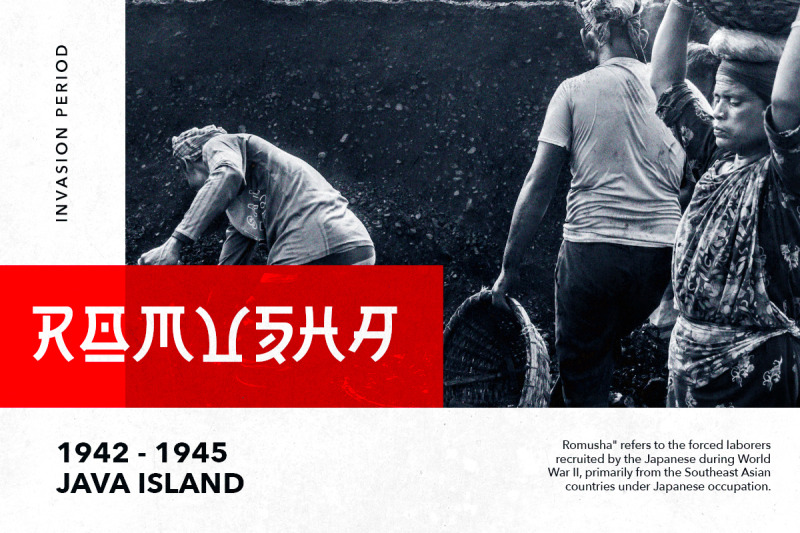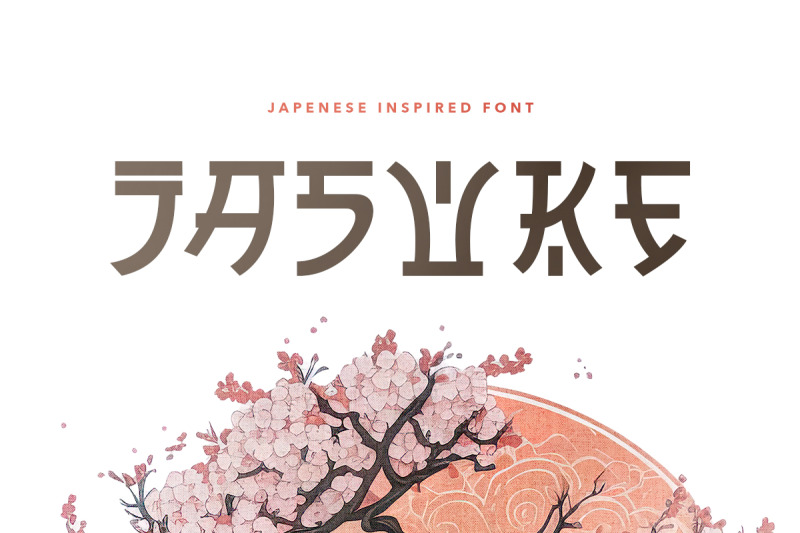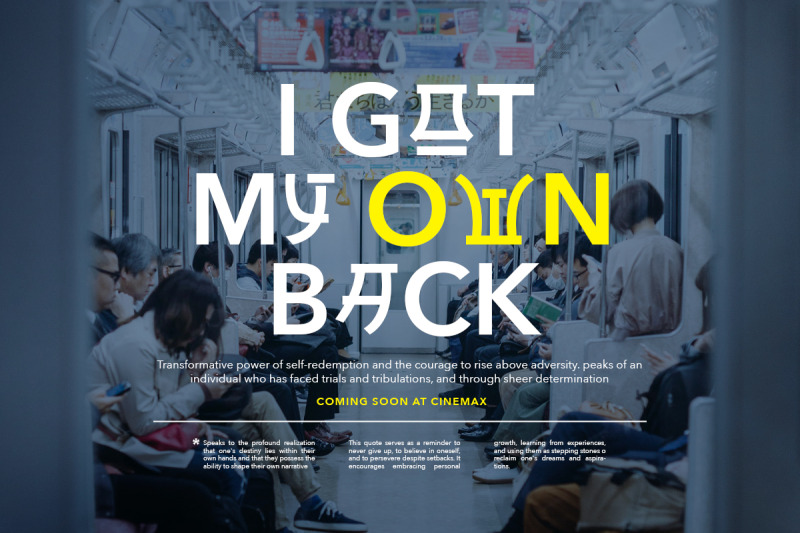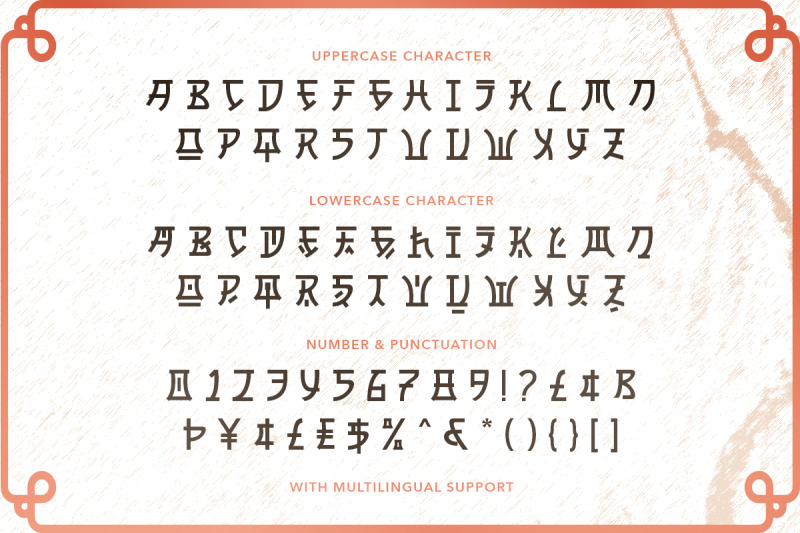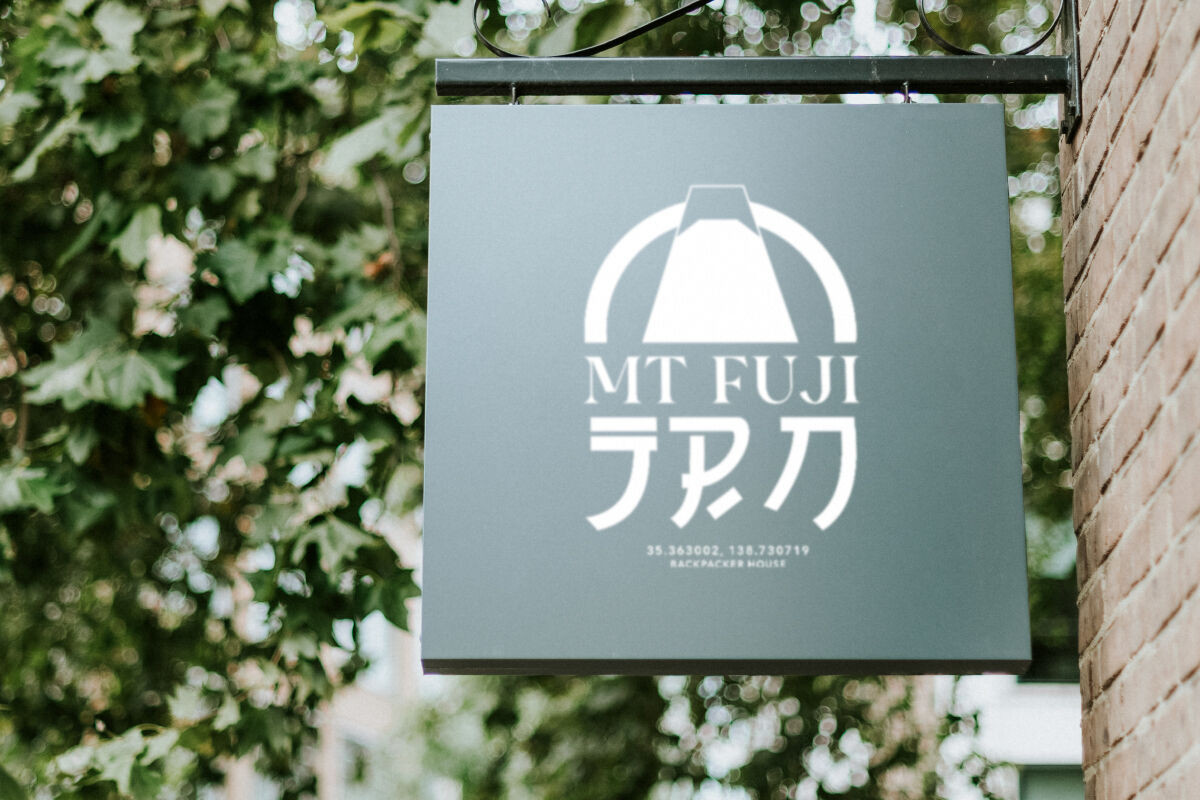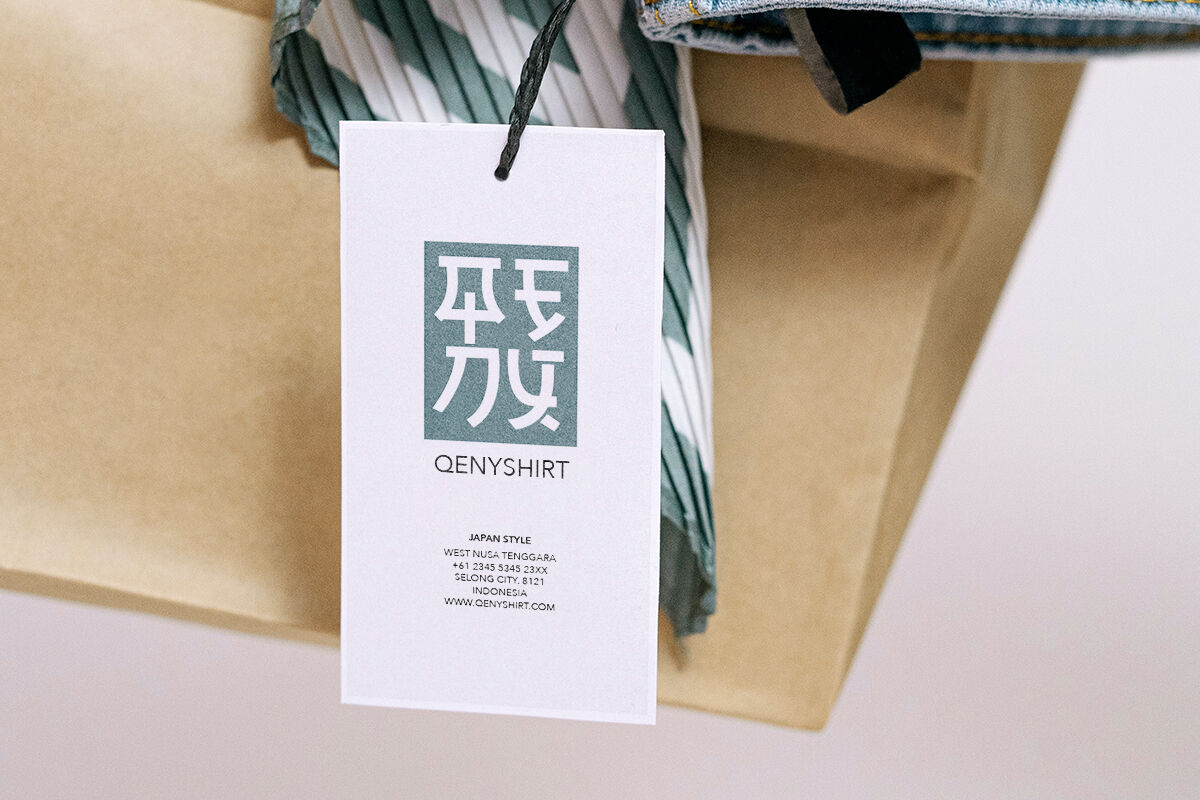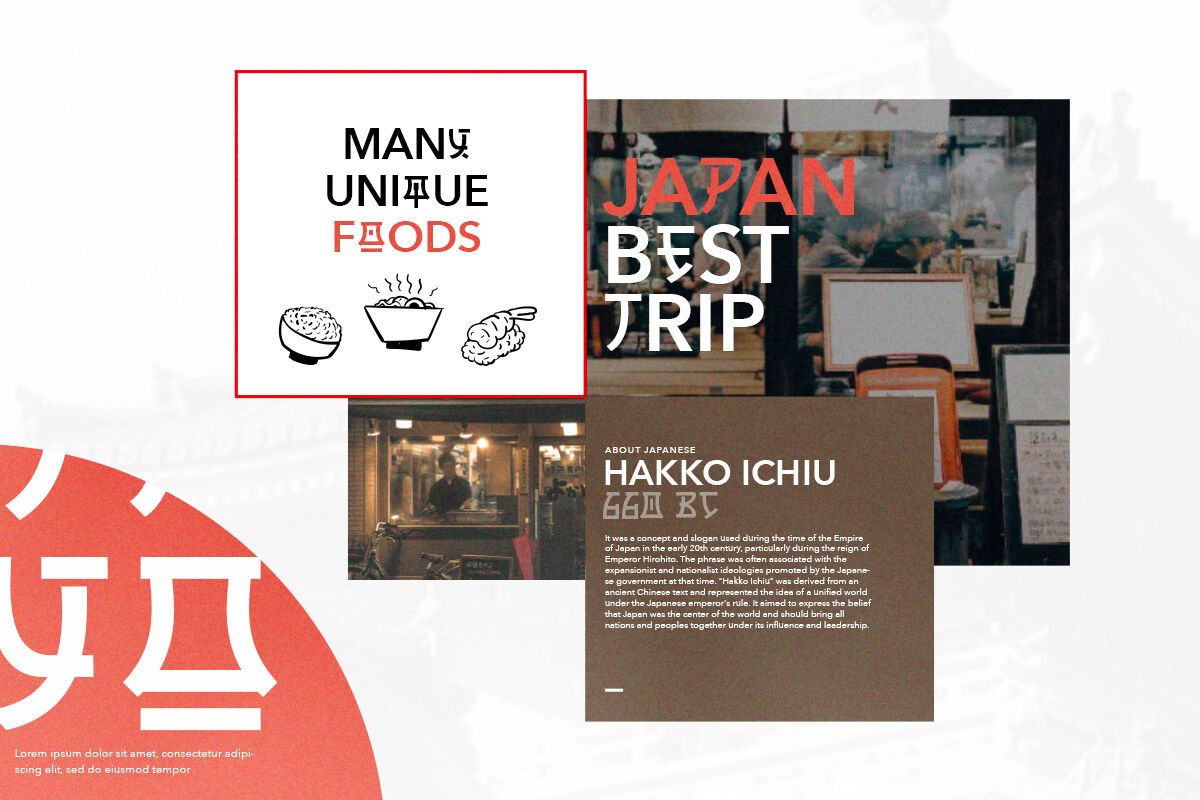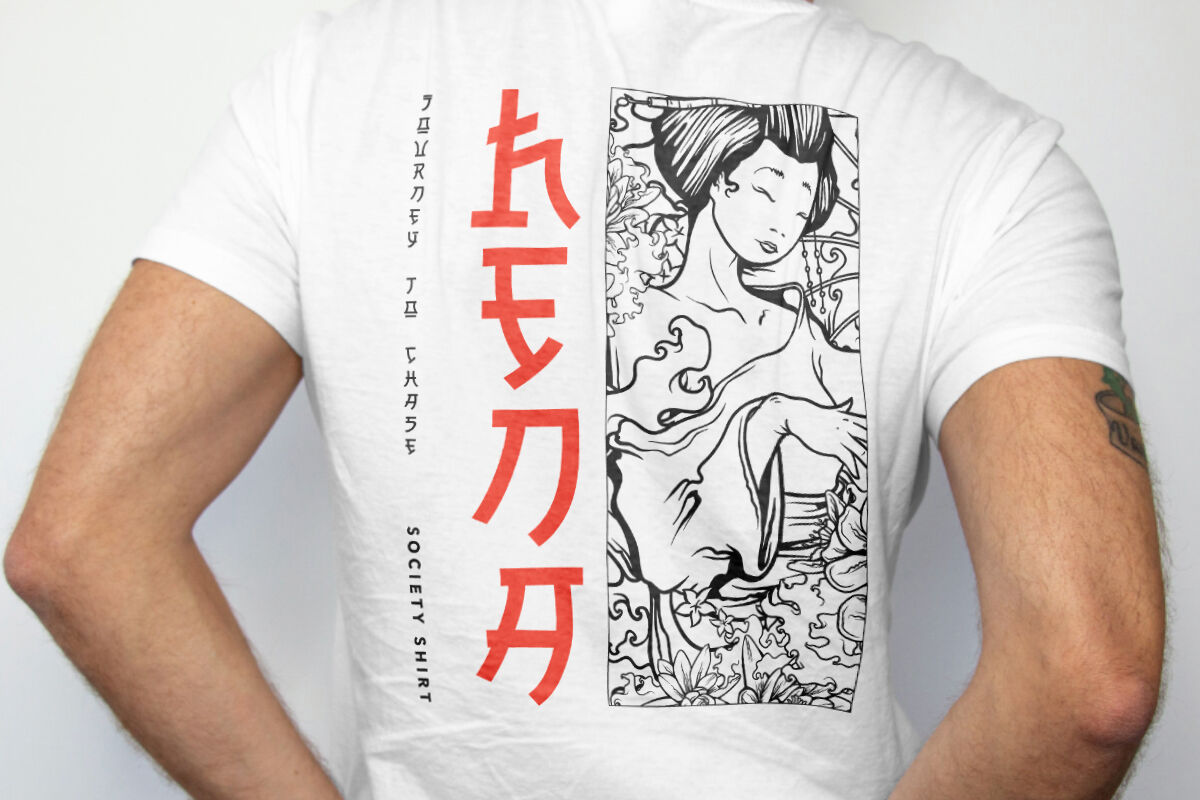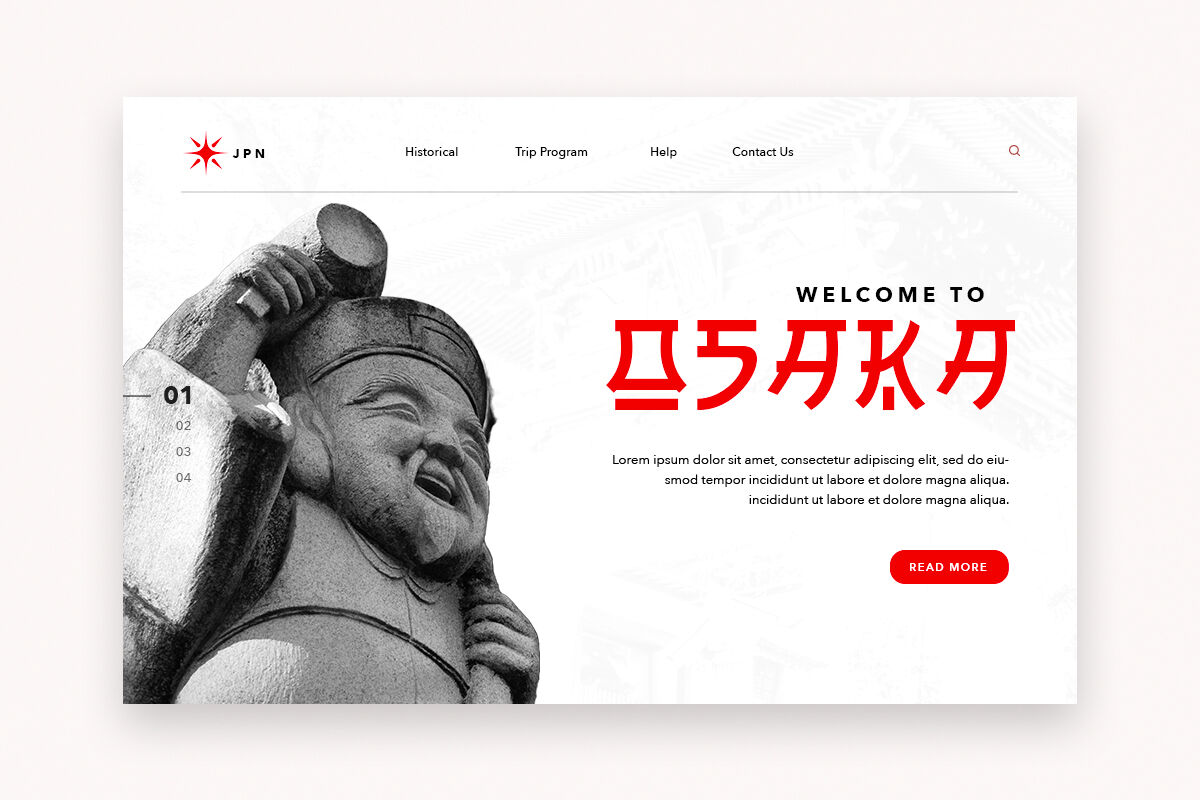
Jasuke - Japanese Inspired Font
Jasuke is a Japanese Inspired font crafted with exceptional taste, seamlessly merging ethnic and cultural elements into each glyph. This font is ideal for enthusiasts of Japanese culture, as well as for those involved in Japanese restaurants, clothing brands, arts, and businesses associated with Japanese culture. You can also combining this font with sans that will make your project more interesting. This font also support multi language!